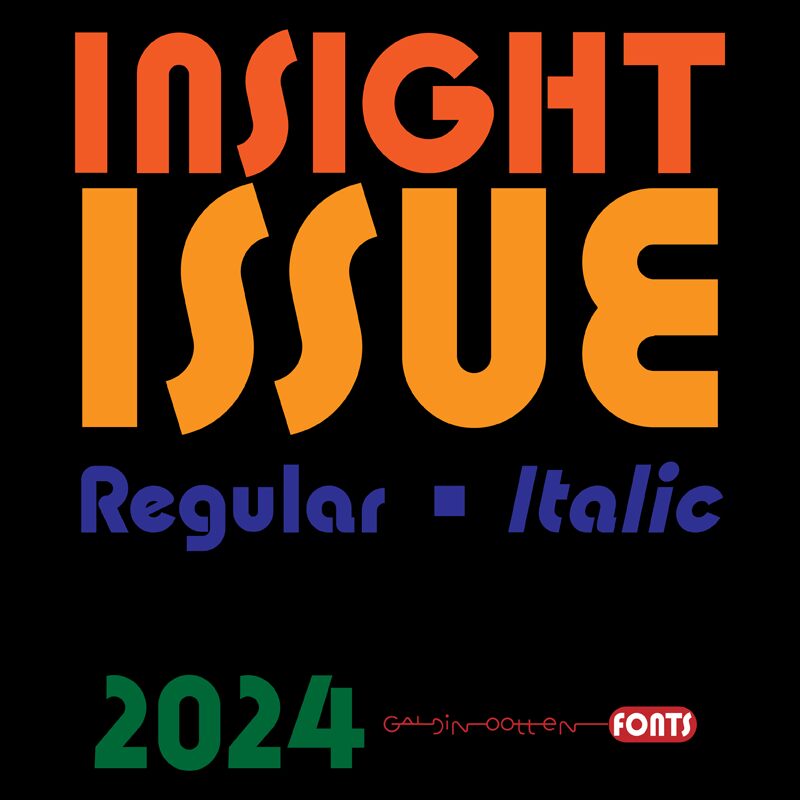
Insight Issue Italic font by Galdino Otten Fonts is a smooth and modern display typeface with gently curved letters. The main attraction of the font is its condensed width which takes up less space on each line. Whether paired or used standalone, it’s clean structures will reflect clarity, sophistication, and an out-the-box note.
This italicized sans-serif font can be used to build websites, lend logo designs an exclusive signature focal point or even power up site headers and subheads for improved focus. Modern books front covers, posters for live gigs such as niched photography exhibitions are other solid uses for this versatile typeface.